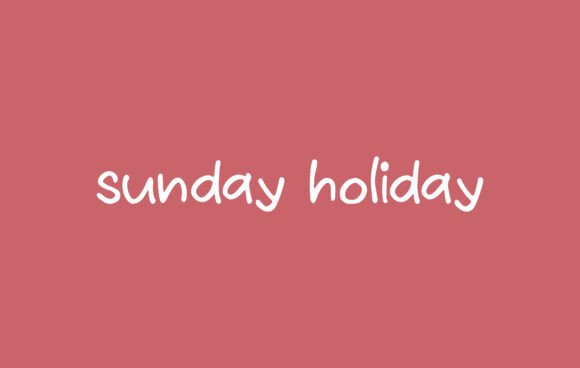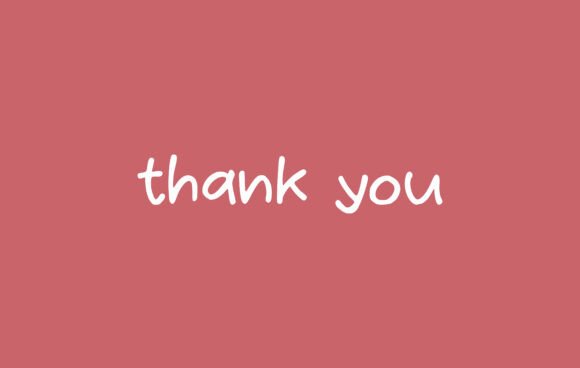
Introducing Cookiecutter Font: The Ultimate Handwritten Font for Creative Projects
Are you tired of using the same old fonts for your creative projects? Look no further than Cookiecutter Font, an authentic handwritten font with a romantic touch that’s sure to take your designs to the next level. Expertly designed to be a true favorite among designers and crafters, Cookiecutter Font is the perfect addition to your font collection.
What Makes Cookiecutter Font So Special?
Cookiecutter Font is more than just a pretty face – it’s a versatile and legible font that’s perfect for a wide range of design projects. Whether you’re looking to create eye-catching magazine headlines, stylish social media graphics, or beautiful wedding invitations, Cookiecutter Font is the perfect choice. Its romantic and whimsical touch adds a touch of elegance and sophistication to any design, making it perfect for branding, cards, and more.
Key Features of Cookiecutter Font
- Authentic Handwritten Style: Cookiecutter Font is a genuine handwritten font that adds a personal touch to any design.
- Romantic and Whimsical: With its flowing curves and elegant lines, Cookiecutter Font is perfect for designs that require a touch of romance and whimsy.
- Highly Legible: Despite its handwritten style, Cookiecutter Font is highly legible, making it perfect for use as both title and body text.
- Versatile: Cookiecutter Font is suitable for a wide range of design projects, from magazine headlines and social media graphics to wedding invitations and branding.
Why Designers and Crafters Love Cookiecutter Font
Designers and crafters love Cookiecutter Font for its unique and authentic handwritten style, which adds a touch of personality to any design. Its legibility and versatility make it perfect for use in a wide range of projects, from commercial designs to personal crafting projects. Whether you’re a professional designer or a DIY crafter, Cookiecutter Font is sure to become a favorite in your font collection.
How to Use Cookiecutter Font in Your Designs
Using Cookiecutter Font in your designs is easy! Here are a few ideas to get you started:
- Magazine Headlines: Use Cookiecutter Font to create eye-catching headlines for your magazine or blog.
- Social Media Graphics: Add a touch of personality to your social media graphics with Cookiecutter Font.
- Wedding Invitations: Make your wedding invitations truly special with Cookiecutter Font.
- Branding: Use Cookiecutter Font to create a unique and memorable brand identity.
- Cards and Stationery: Add a touch of whimsy and romance to your cards and stationery with Cookiecutter Font.
In conclusion, Cookiecutter Font is a must-have font for any designer or crafter looking to add a touch of personality and romance to their designs. With its authentic handwritten style, high legibility, and versatility, Cookiecutter Font is perfect for a wide range of design projects. Whether you’re a professional designer or a DIY crafter, Cookiecutter Font is sure to become a favorite in your font collection.